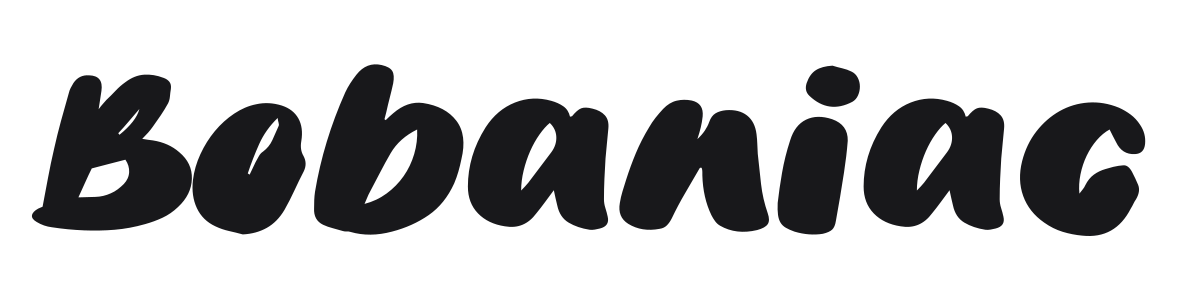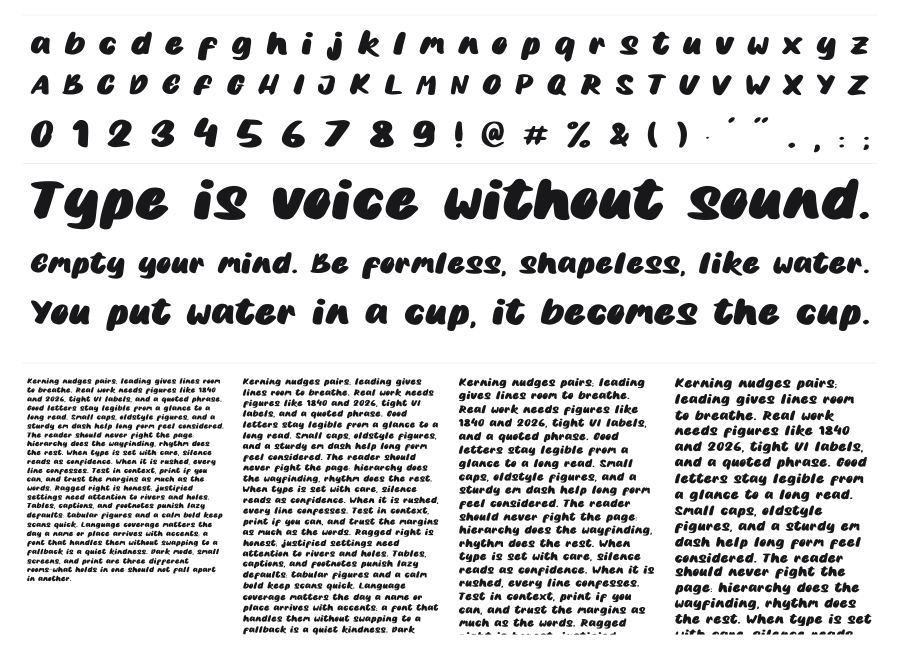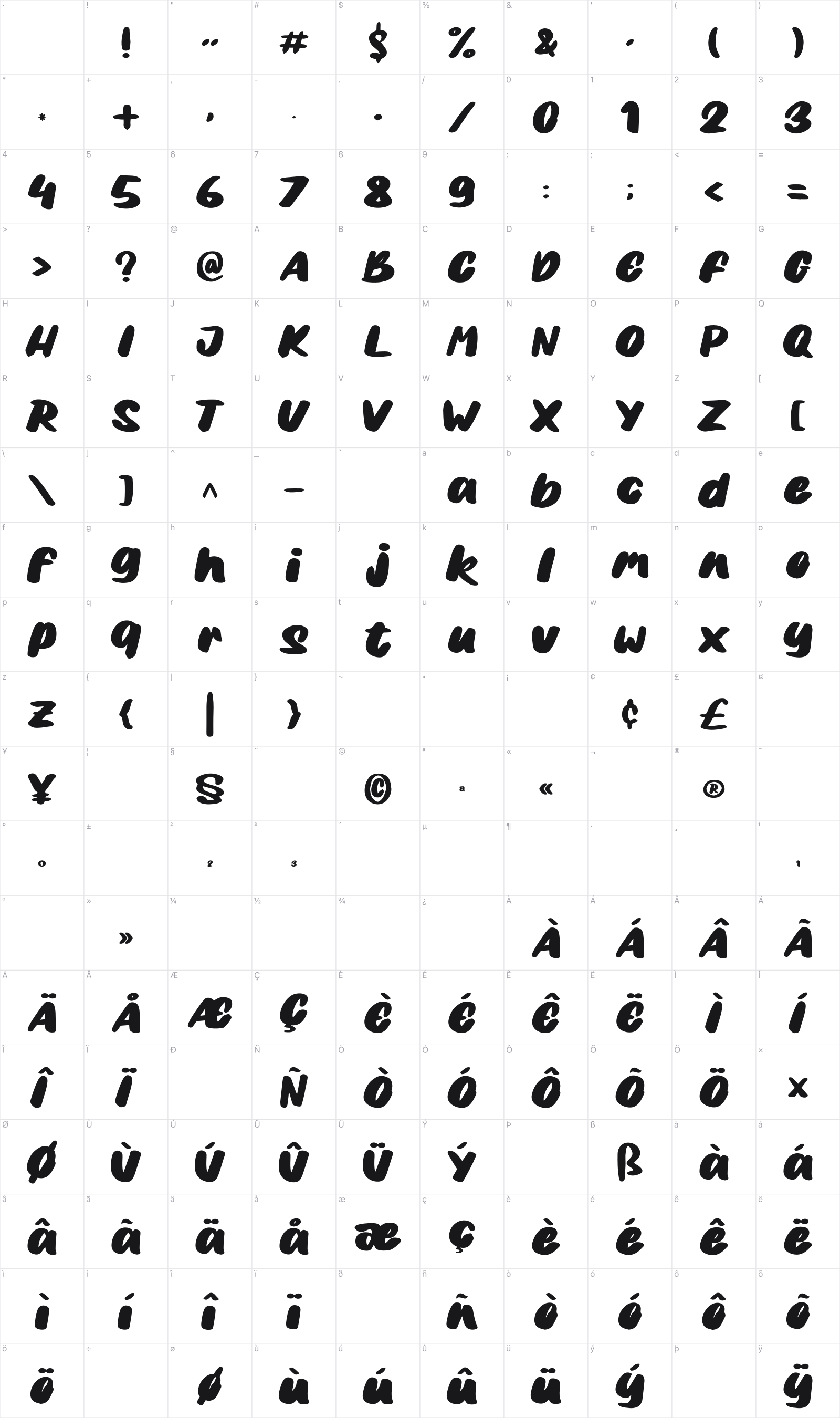
Bobaniac
Bobaniac is a bold casual script with heavy, rounded strokes and a lively italic slant. Its chunky brush-like forms feel hand-lettered without being precious, landing somewhere between a skate brand and a food truck menu. The connected letters and bouncy rhythm make it hard to ignore at display sizes.